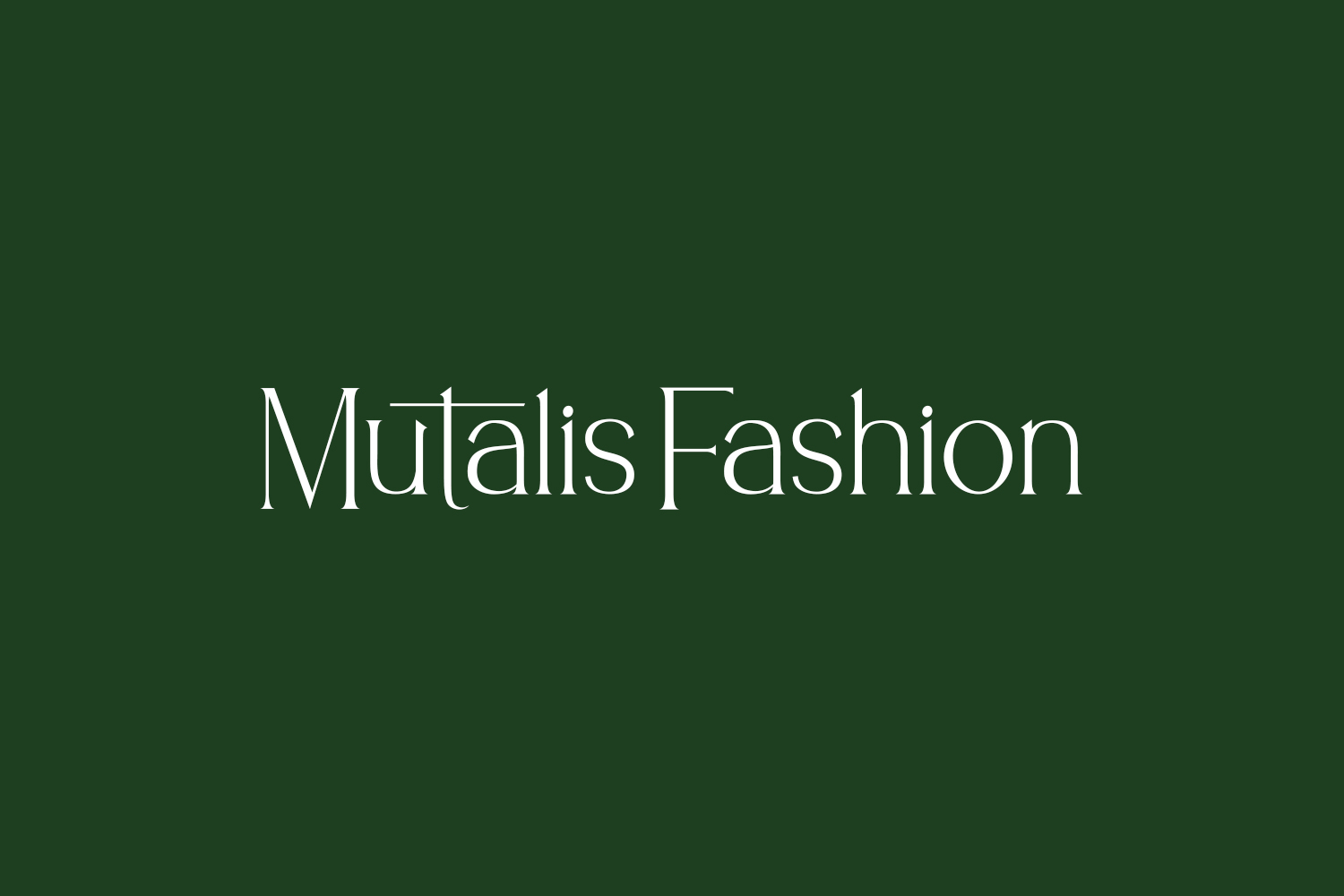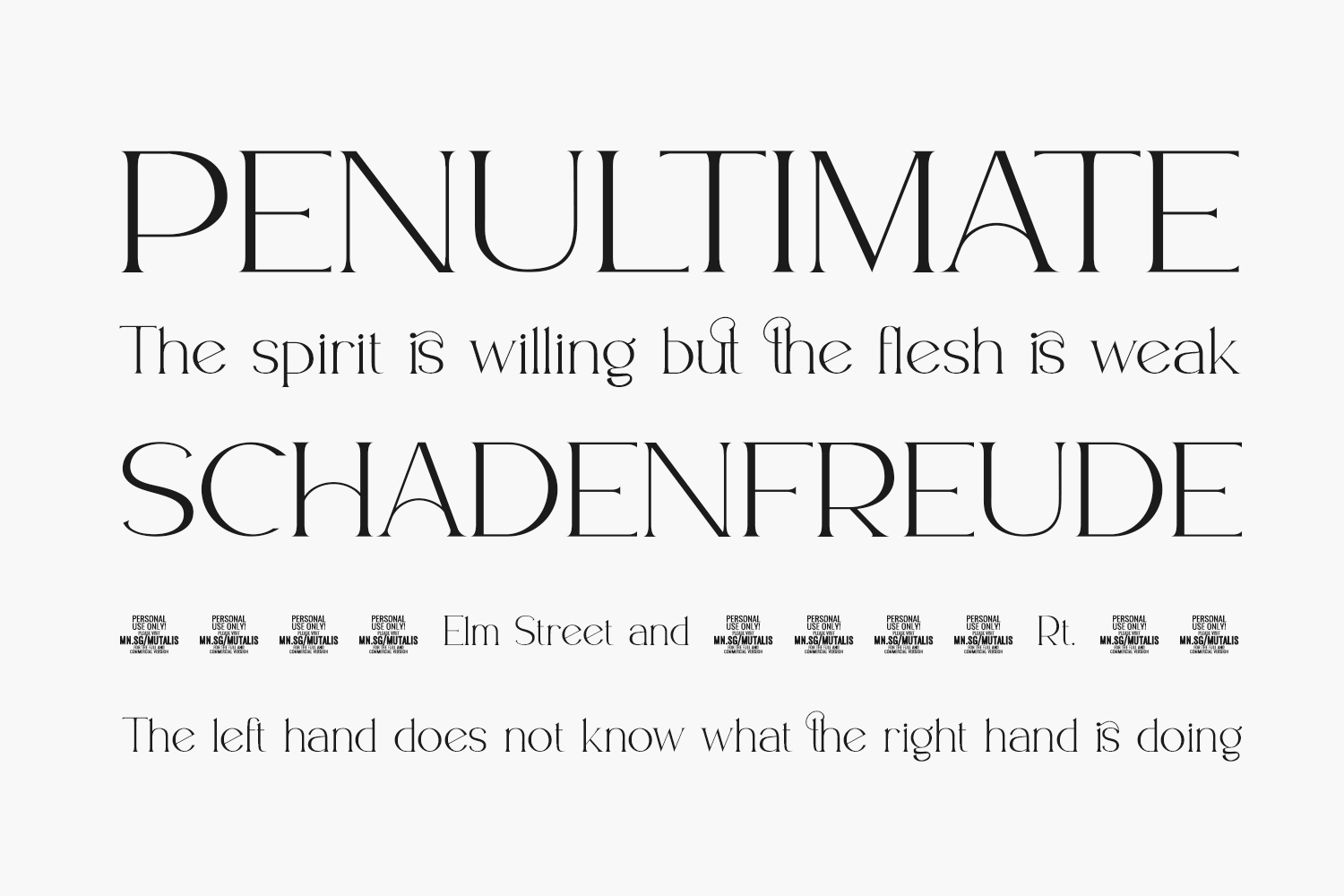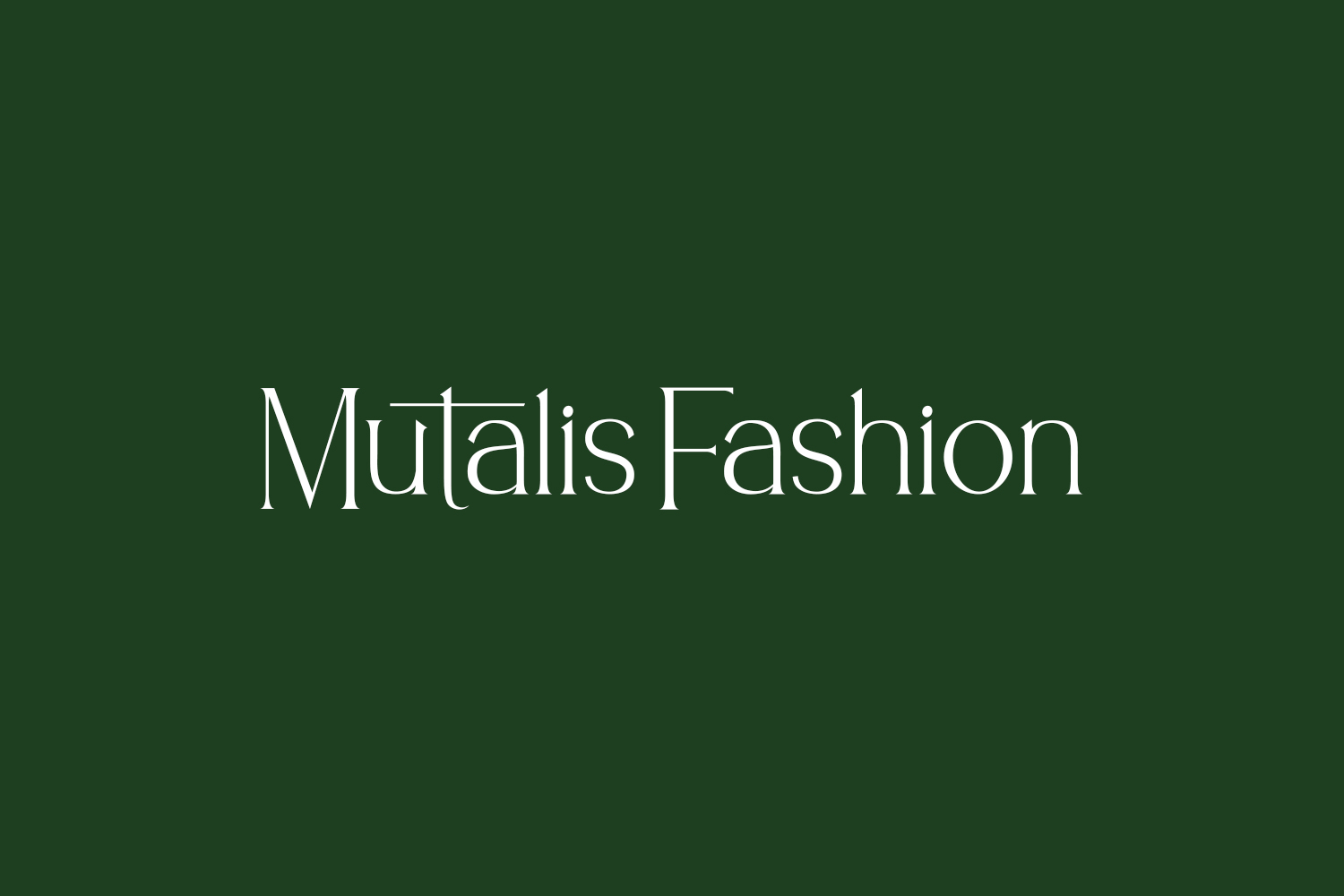
Mutalis Fashion Free Font is a high-quality typeface that features clean lines and elegant serifs. The font has a bold and confident look that makes it perfect for fashion-related projects such as magazine covers, fashion websites, and branding designs. The font is available in three styles – regular, bold, and italic – making it versatile for a range of design applications. Mutalis Fashion Free Font is a demo and free for personal use only. Please purchase the full version for commercial use.